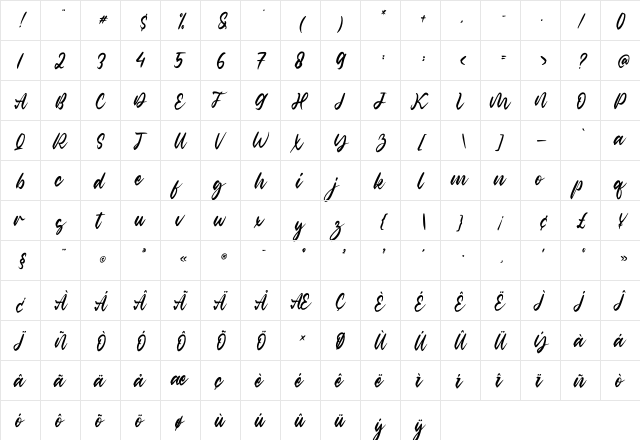
Classic Romantic Regular
Design Context for Classic Romantic Typeface
Classic Romantic has the warm character of retro typography — evoking diners, record sleeves, and the golden age of print advertising.
Font Pairing: Combine Classic Romantic with a simple slab or neutral sans — period-accurate companions reinforce the vintage feel without competing for attention.
Pro Tip: Lean into Classic Romantic's period character by pairing it with aged paper textures, muted colour palettes, and vintage illustration styles.